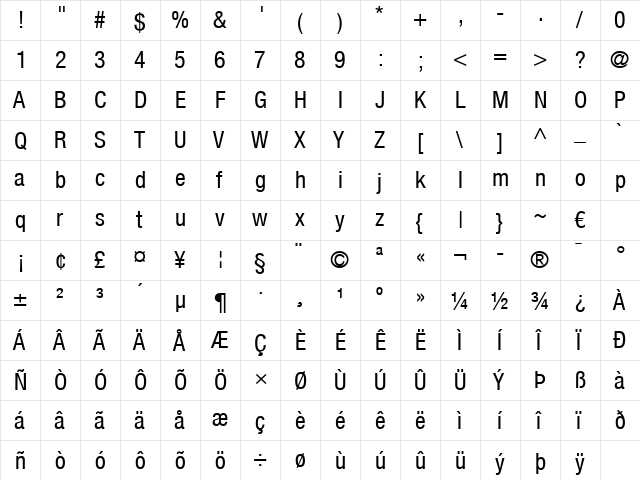
HelveticaNeue LT 57 Cn Regular Font Preview
HelveticaNeue LT 57 Cn Regular
HelveticaNeue LT 57 Cn Regular Font Details
Design Context for HelveticaNeue LT 57 Cn Typeface
HelveticaNeue LT 57 Cn is a composed and adaptable typeface that performs quietly and consistently across a wide range of design contexts. Its slender proportions lend an understated elegance to any composition.
Pro Tip: Use HelveticaNeue LT 57 Cn in both headline and body roles to test its range before committing to a single application.